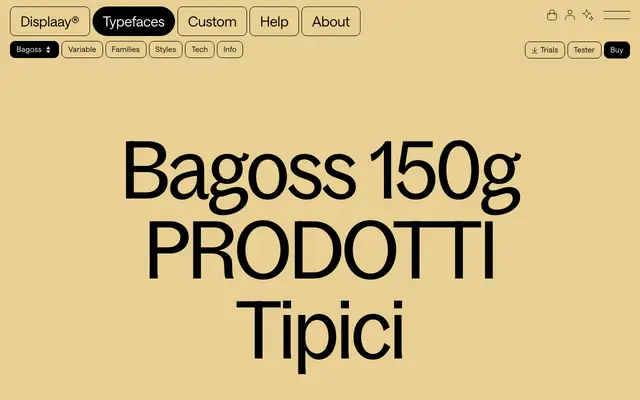
Bagoss Condensed
Displaay Type Foundry · Daniel Quisek · 2022
The condensed width of Bagoss by Daniel Quisek, narrowed from the standard with the same hint serif and stroke contrast.
The Condensed width of the Bagoss Collection by Daniel Quisek, the narrowest of three width families. Twelve styles run across six weights with matching italics, sharing the family's high contrast and tiny single-edge serif. The Bagoss Collection variable cut covers Weight, Slant and Width axes, so designers can move between Condensed, Standard and Extended in one file.
Displaay class Bagoss under sans / grotesque. Condensed is the narrowest of three width families inside the Bagoss Collection. Carries the same hint serif and high contrast, scaled to a tighter width.